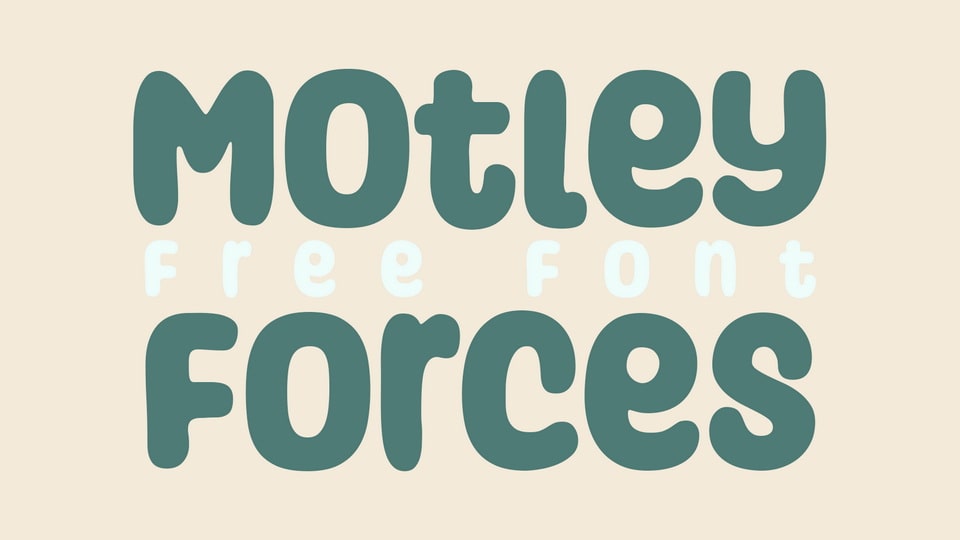
Download Motley Forces font, a playful, fun and whimsical handwritten typeface. A little bit quirky, Motley Forces font looks incredibly adept in a wide variety of contexts!